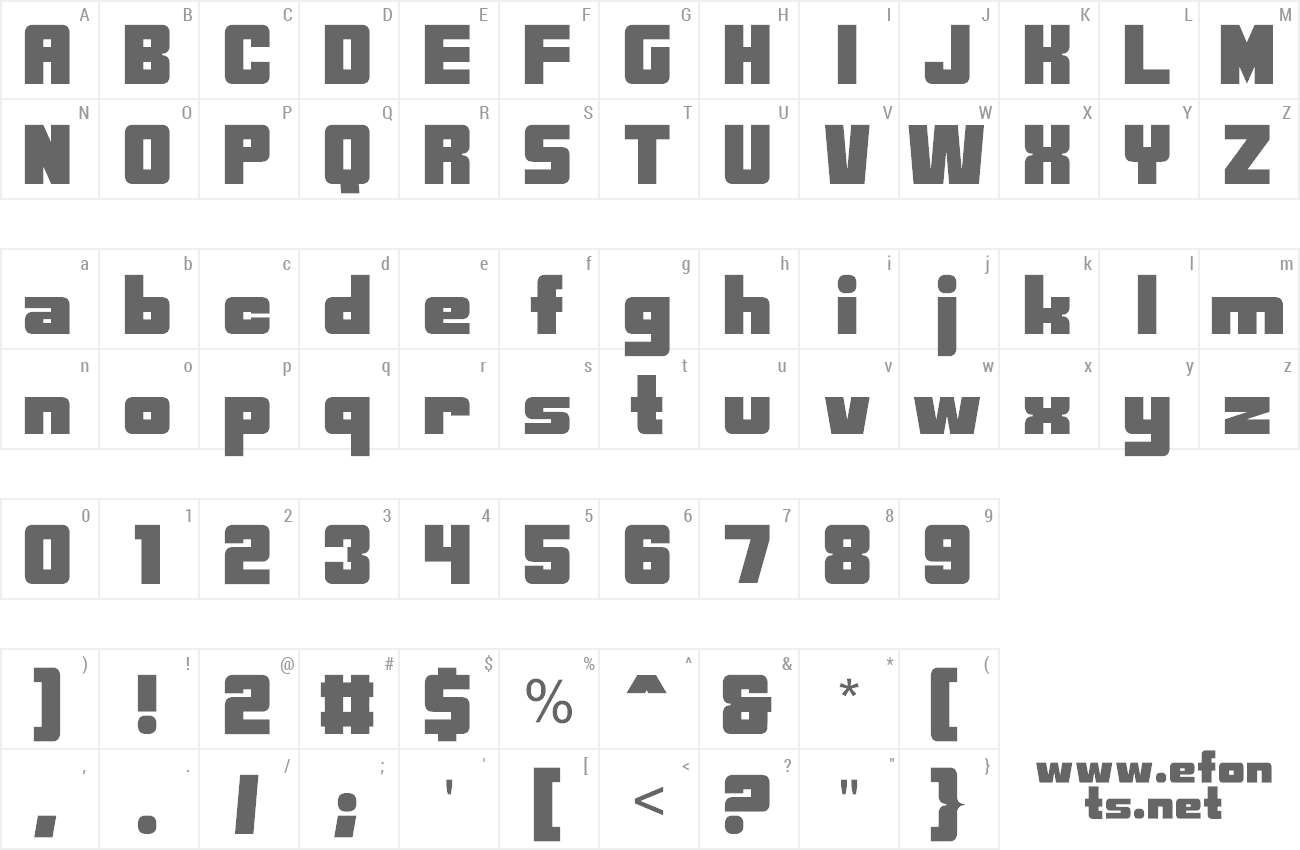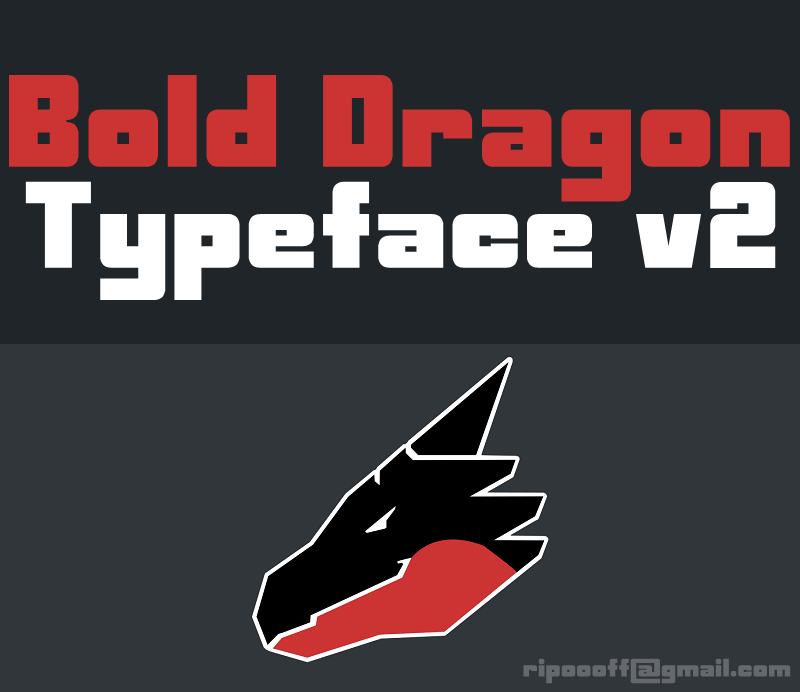
Bold Dragon Font inspired by the text from the "Bad Dragon" logo which doesn't exist. Made using fontforge. I am in no way affiliated with Bad Dragon. |